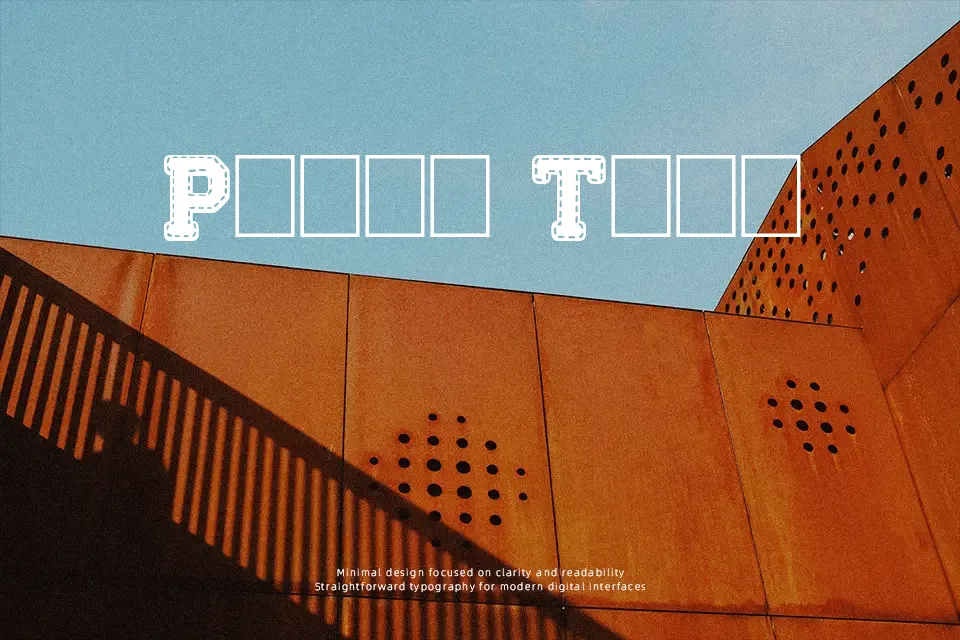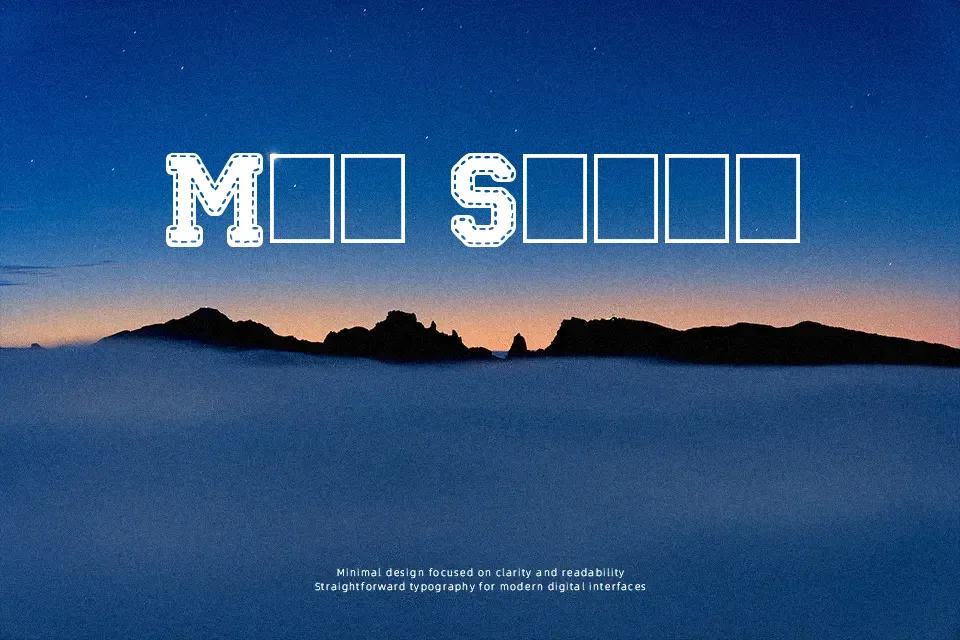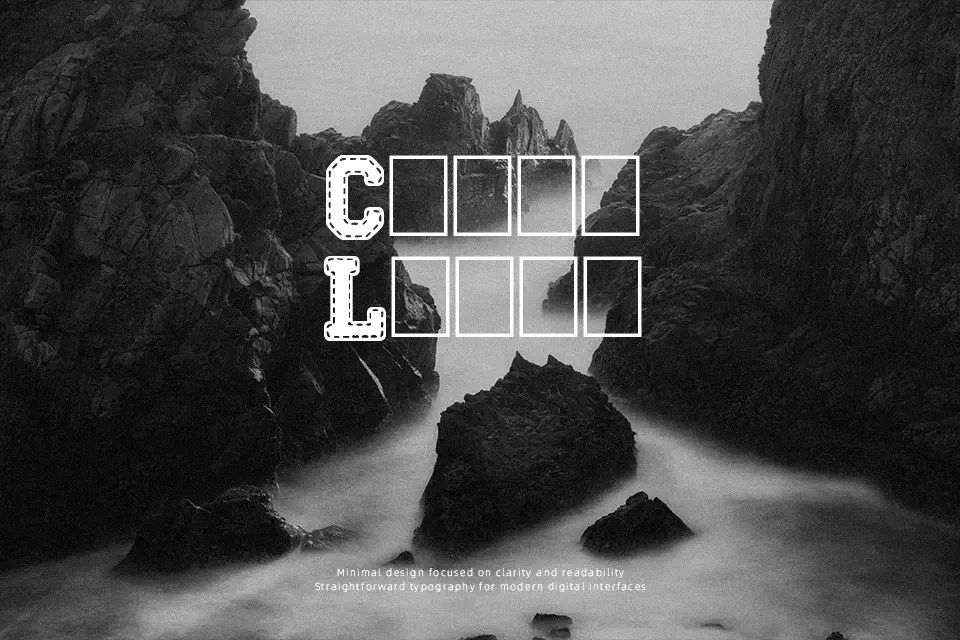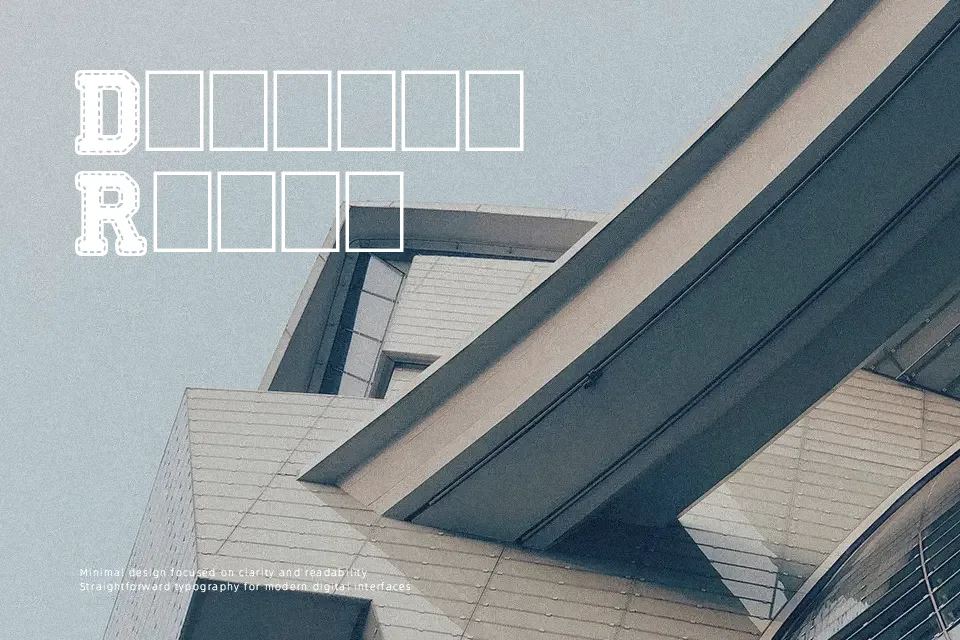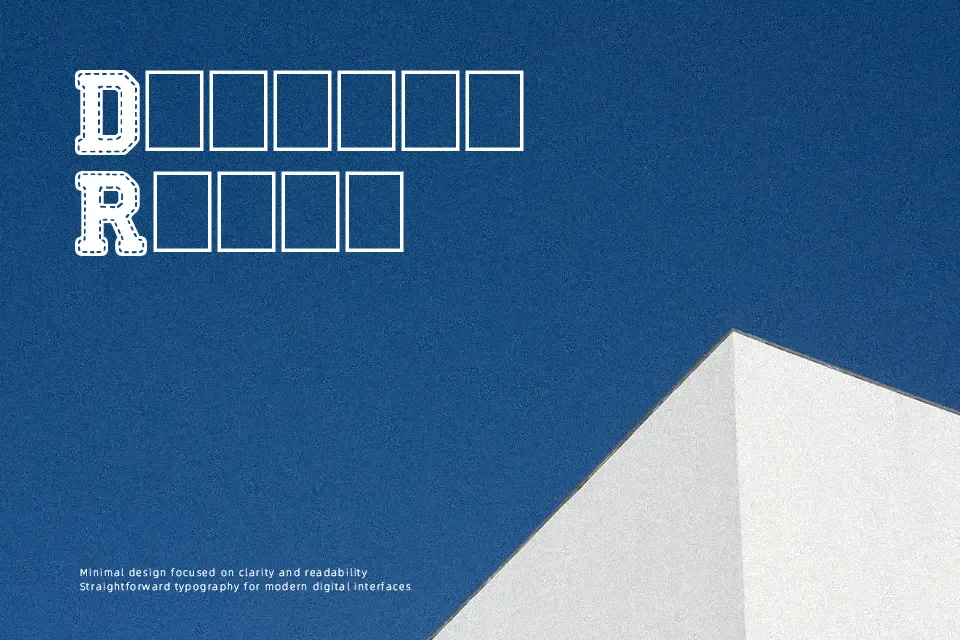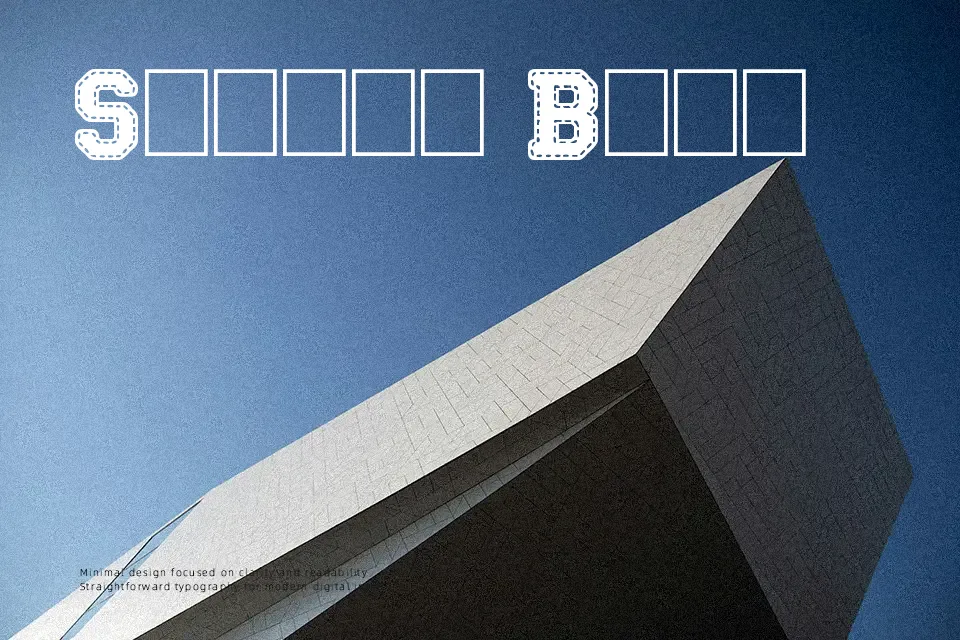
Stitch’n School Font
Stitch’n School Font is constructed around solid, geometric slab forms embedded with dashed internal seams that emulate fabric embroidery. The heavy stroke weight and uniform proportions give each character substantial presence, while balanced spacing prevents adjacent letters from colliding in title layouts. Because the inner dashed stitching provides texture without compromising outline clarity, the letterforms remain distinct in large-scale sportswear headings and event banners. However, the decorative inner dashes become muddy and illegible when rendered at small point sizes. This decorative design performs best as a dedicated display typeface on merchandise rather than in multi-line paragraphs or dense editorial layouts.
Best For: athletic apparel graphics, collegiate banner headlines, varsity jacket mockups, sports event posters
Not Ideal For: continuous reading body text, small print captions, mobile UI navigation labels, dense spreadsheet data
Perfect for branding, headline, and packaging, with a bold and decorative style.